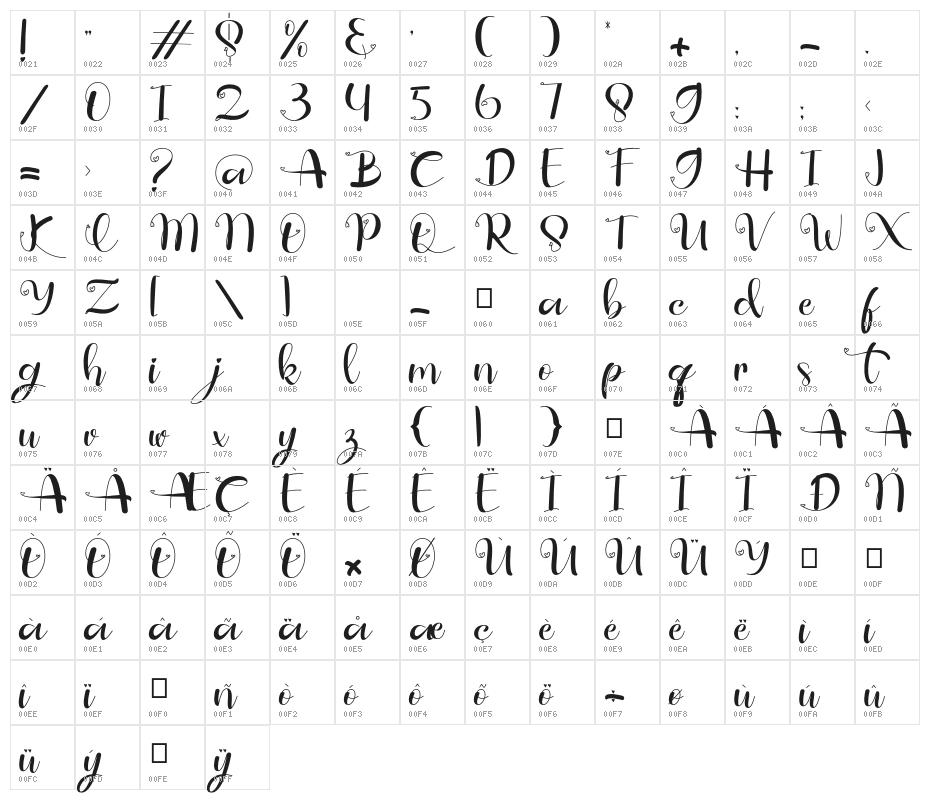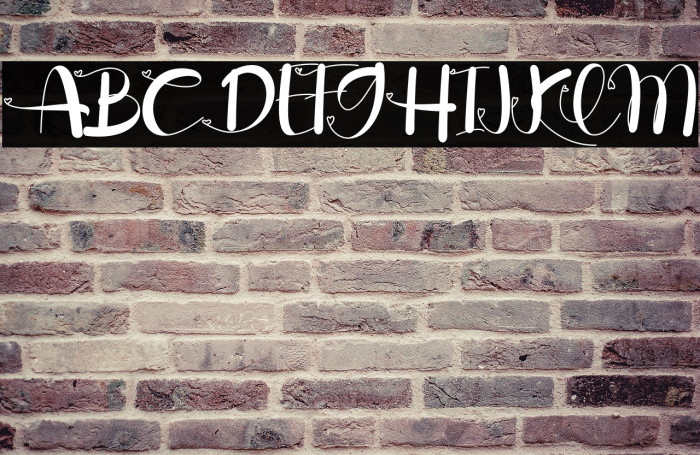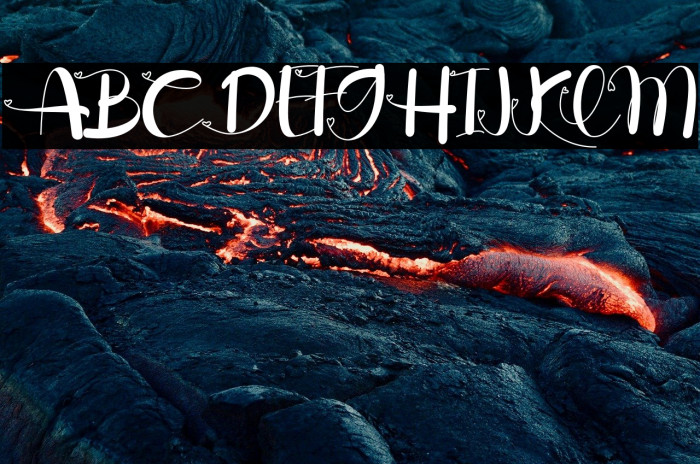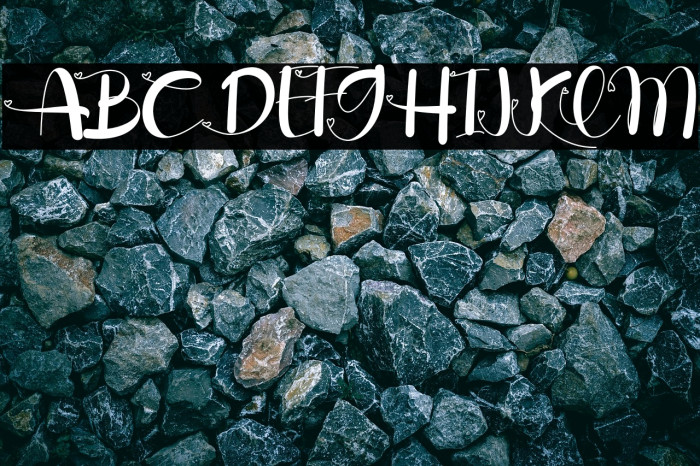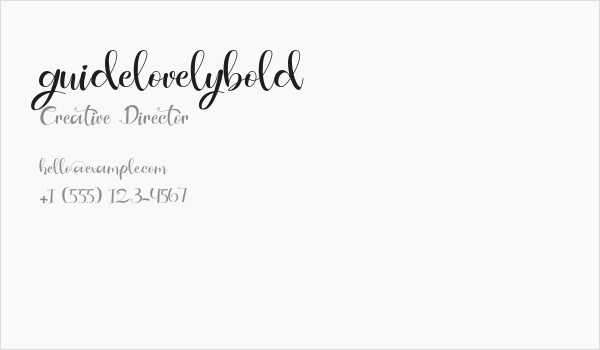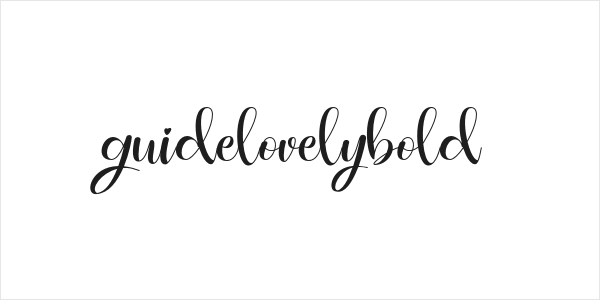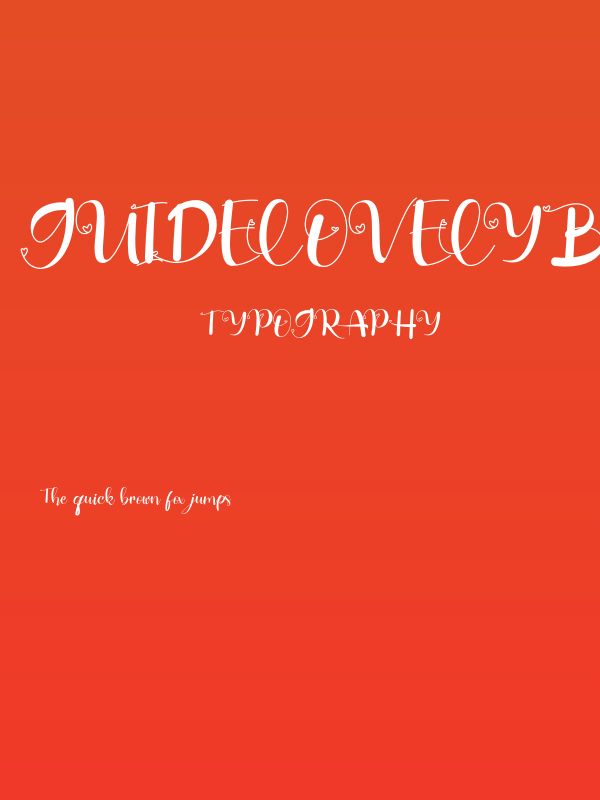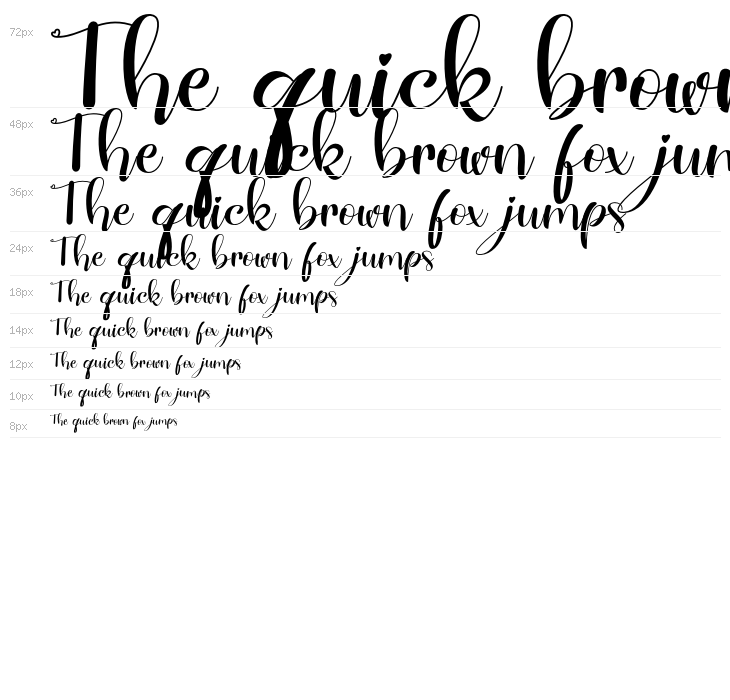
guidelovelybold Font
guidelovelybold Description
This font features a whimsical and romantic script style, characterized by elegant swirls and heart motifs integrated into the letterforms. The uppercase letters are bold and flowing, with decorative loops that add a touch of charm and playfulness. The lowercase letters maintain a consistent style, with smooth curves and a slightly slanted orientation, enhancing the font's graceful appearance. The numerals and special characters are designed to match the overall aesthetic, incorporating similar decorative elements. This font exudes a sense of elegance and creativity, making it ideal for projects that require a personal and artistic touch.
| Proposed Projects | Ideal for wedding invitations, greeting cards, branding, and romantic-themed designs. |